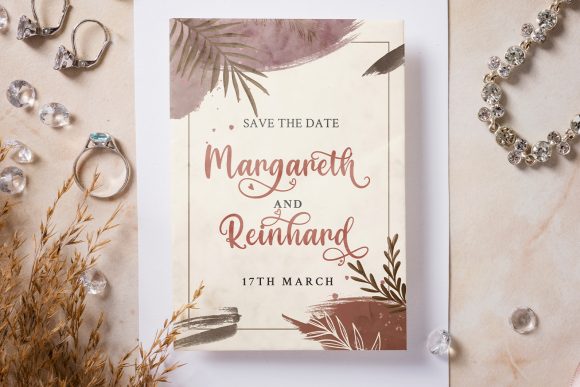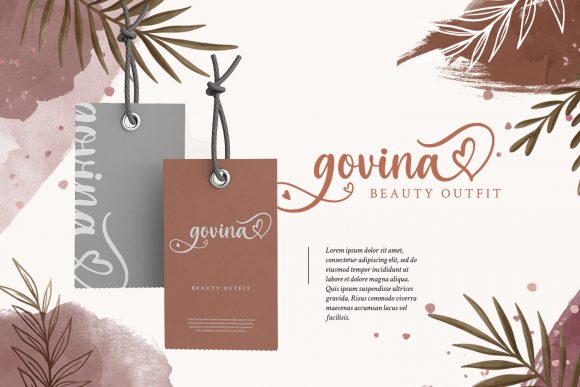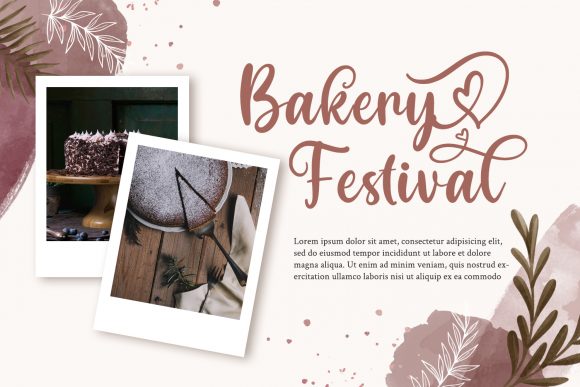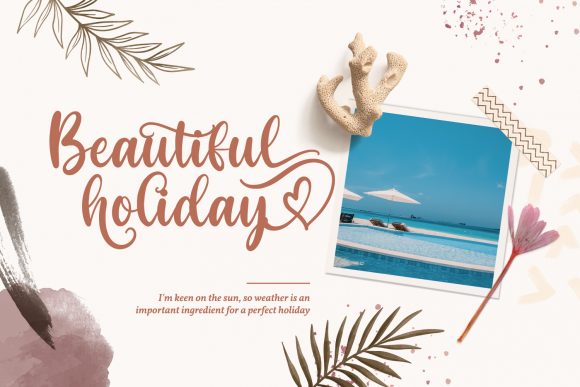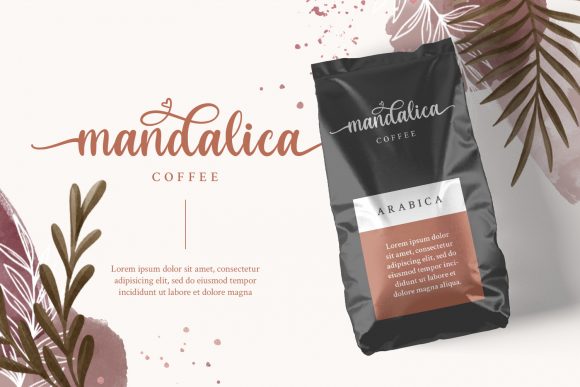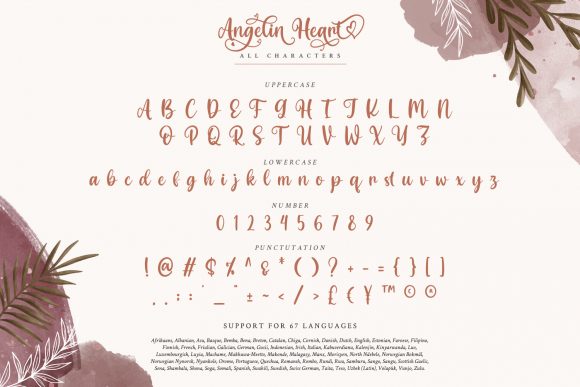
Find Your Perfect Font: Unveiling the Beauty of Angelin Heart Font
Have you ever been stuck in front of your computer screen, staring at a blank page, desperately searching for the perfect font to bring your design to life? The moment of creative block is all too familiar for many of us. But what if you stumbled upon a font that not only elevates your projects but also makes your design process a breeze?
Meet Angelin Heart Font, a refined script font designed to add a touch of sophistication and elegance to your work. With its contemporary atmosphere and spotless form, this font is perfect for designers looking to create visually stunning projects. The Angelin Heart Font’s balanced and varied design ensures that it’s neither too thin nor too thick, making it an ideal choice for various design applications.
What sets the Angelin Heart Font apart is its PUA encoding, allowing you to access all the glyphs and swashes with ease. This means you can unleash your creativity without any limitations, making it an invaluable asset for designers looking to take their work to the next level.
- Unique Characteristics: The font features a unique, hand-drawn design with a mix of elegant and whimsical elements, making it perfect for creative projects.
Angel Heart Font Review
Overall, I think Angelin Heart Font is a beautiful, elegant script font. ✨ It’s perfect for designs that require a touch of sophistication and romance. The font is highly legible, and the flourishes add a nice decorative element without being too over-the-top.
- Highly legible even in smaller sizes
- Perfect for designs that require a touch of elegance and romance
- Flourishes add a nice decorative element without being too overwhelming
- Works well in both digital and print applications
- May be difficult to read in certain font sizes or weights
- Not ideal for designs that require a bold, edgy look
- May require additional design elements to make it stand out
Overall, I think Angelin Heart Font is a great choice for designs that require a touch of elegance and romance. While it may have some limitations, it’s a beautiful and highly legible font that’s perfect for a variety of applications.
For best results, use Angelin Heart Font in titles or headings to add a touch of elegance and whimsy to your design.
The Angelin Heart Font is ideal for:
- Gift tags and labels
- Artistic and creative projects